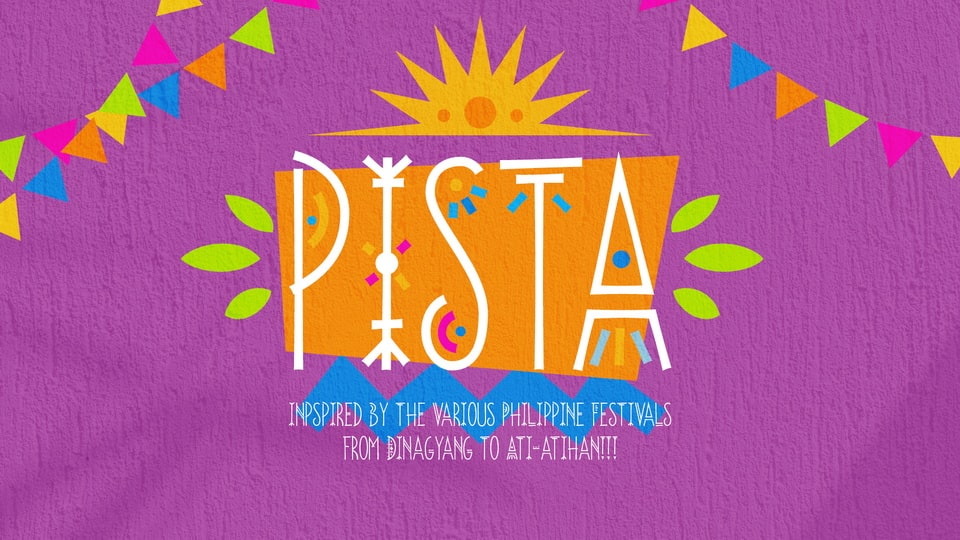
Download Pista font, an ethnic-style typeface inspired by the various Philippine festivals. Pista or piyesta (fiesta) means festival or holiday.
Designer: John Misael Villanueva